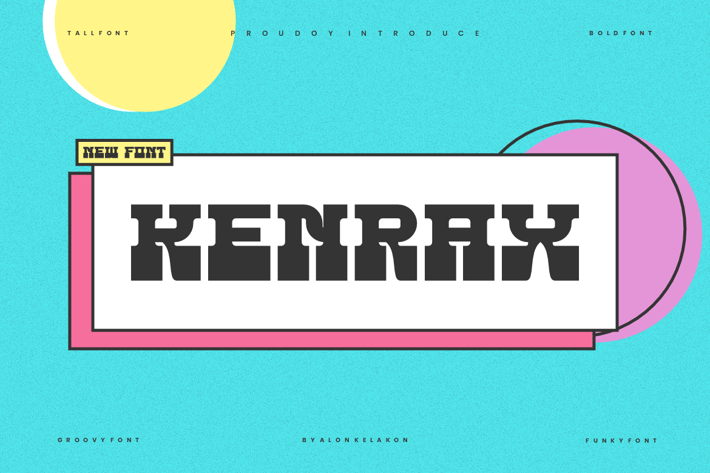
Kenrax - Groovy Font
Kenrax Font is unique . Ready to use for your design like labeling, movie sceen, poster, movie title, gigs, album covers, logos, and much more.